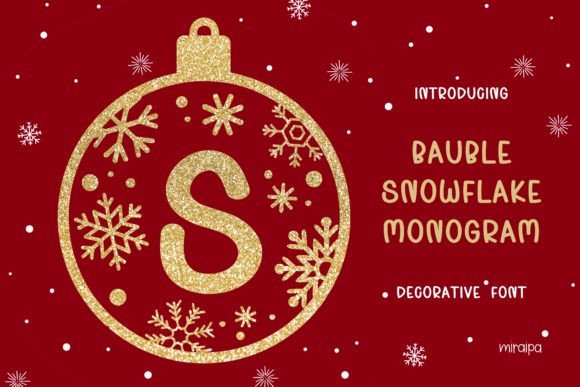
Step into a winter wonderland of lettering and adorn your designs with the magic of Bauble Snowflake Font! This enchanting decorative font is a treasure trove of joy, capturing the essence of a merry Christmas. Crafted with meticulous care, each letter dances like a delicate snowflake, carrying the promise of a festive season filled with laughter and love.
Immerse yourself in endless creative possibilities with Bauble Snowflake Font. Let your imagination soar as you create eye-catching Christmas cards, heartfelt holiday invitations, and charming gift tags. Its intricate details and whimsical style will transform your designs into works of art that evoke a sense of wonder and merriment.
Whether you're a seasoned designer or just starting your creative journey, Bauble Snowflake Font is an essential tool for spreading holiday cheer. Its user-friendly format and versatile nature make it suitable for a wide range of projects. Unleash your creativity and watch as your designs take on a magical, festive charm that will capture hearts and inspire smiles.
Don't settle for ordinary fonts when you can embrace the magic of Bauble Snowflake Font. Say goodbye to dull and mundane designs, and embark on a creative adventure that will leave a lasting impression. Let the playful spirit of Christmas guide your creations and witness the transformation as your designs blossom into stunning, unforgettable masterpieces.
Join the celebration and bring a touch of winter enchantment to your creative projects with Bauble Snowflake Font. Let the festive spirit flow through your veins as you design captivating holiday greetings, enchanting invitations, and delightful gift tags. Every letter you type will carry a piece of Christmas magic, spreading joy and warmth wherever it goes.